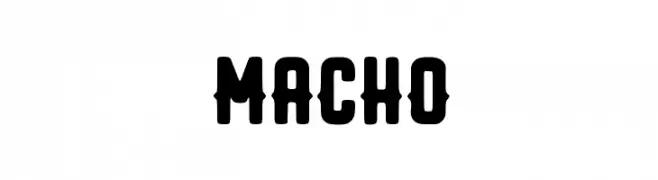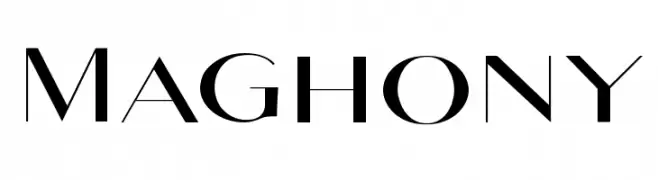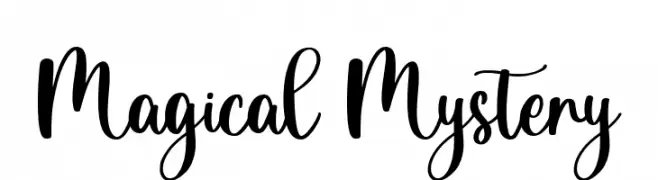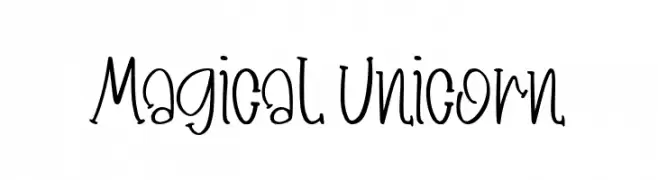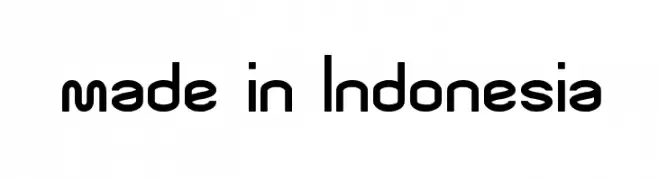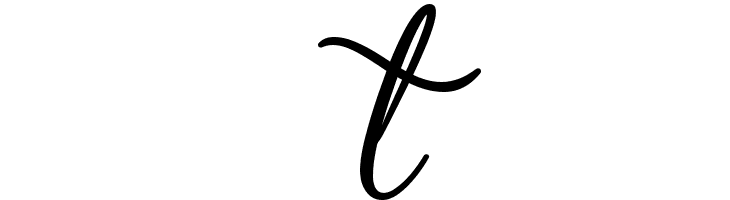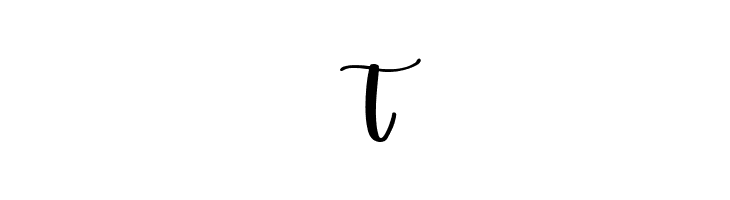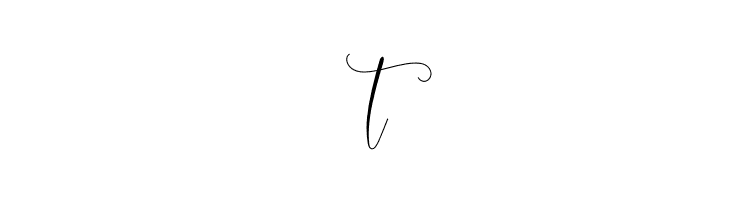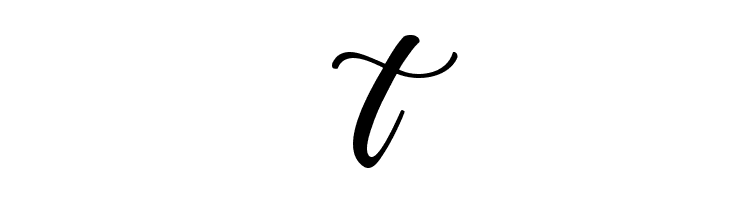
A bold, blocky font with a vintage woodcut style, perfect for impactful headlines and logos.
An elegant, flowing script font with interconnected letters and artistic flair.
A modern, rounded font with a playful and cohesive design.
A flowing, calligraphic script font with elegant curves and a sophisticated handwritten style.
A modern, elegant font with high contrast and sleek, elongated characters.
A whimsical and flowing script font with elegant, dynamic letterforms.
A whimsical, handwritten font with playful, irregular characters.